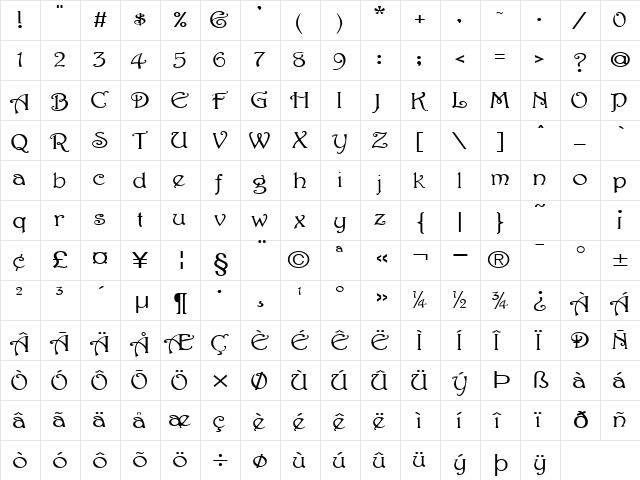
Parisian-Extended Normal
Design Context for Parisian-Extended Typeface
Parisian-Extended is a composed and adaptable typeface that performs quietly and consistently across a wide range of design contexts.